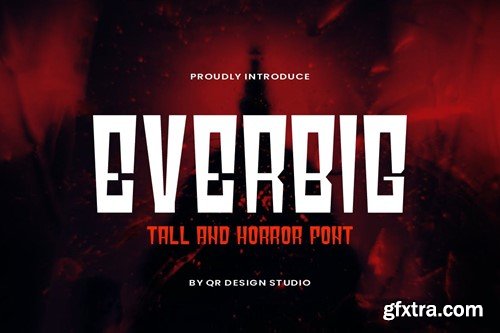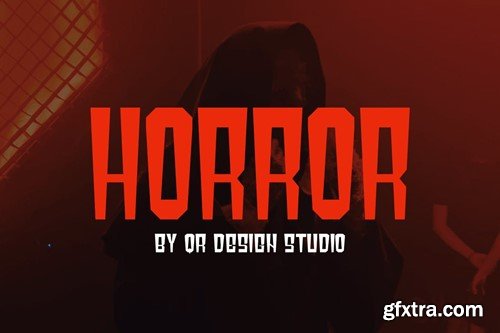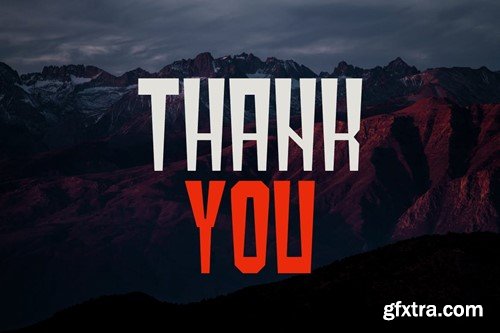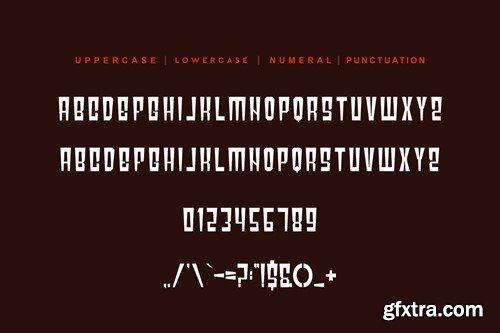
Everbig - Tall & Horror Font UHT27D5
Everbig - Tall & Horror Font
Everbig - Tall & Horror Font is a sans serif and authentic display font. The font is suitable for any branding project like horror, poster, logo, sport, and many more. Outstanding in a wide range of contexts. Included